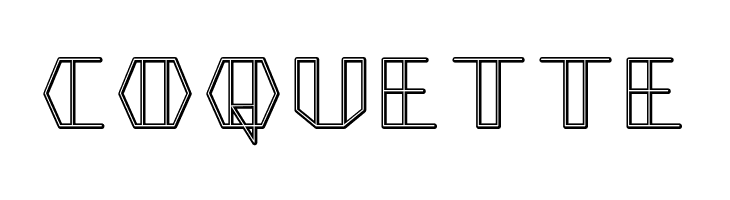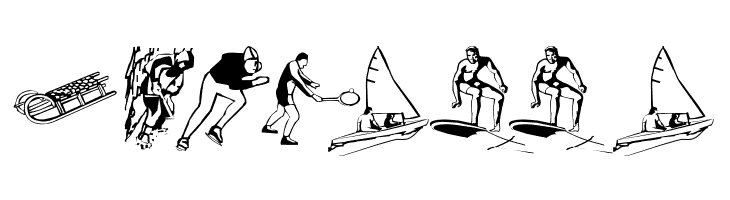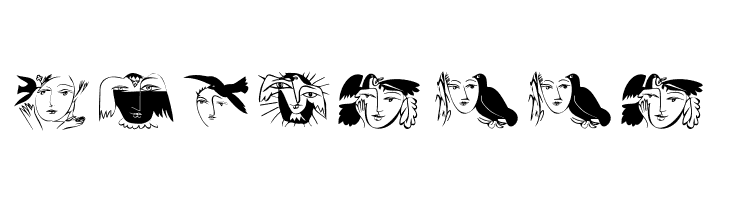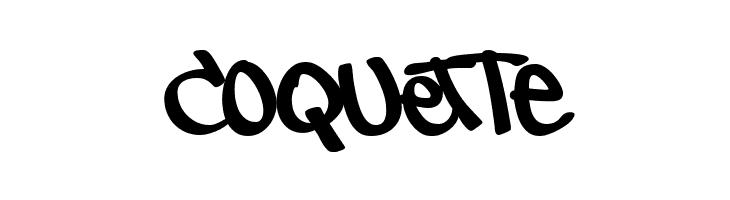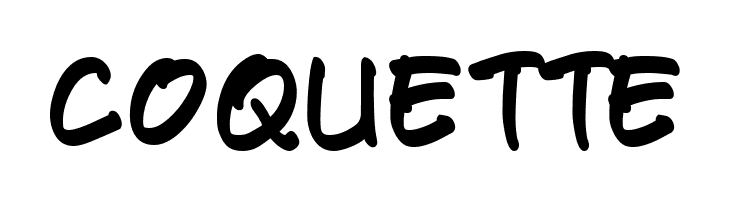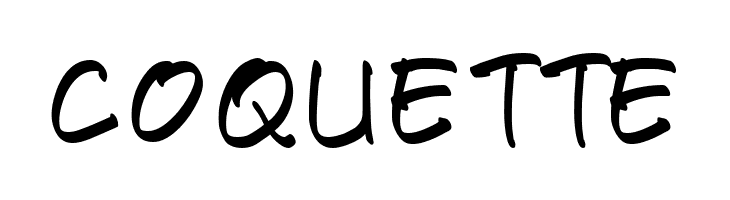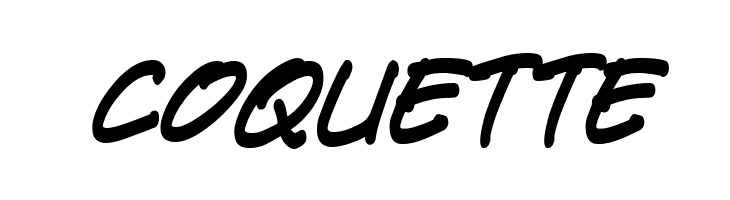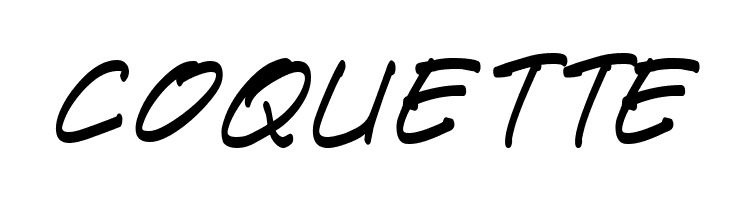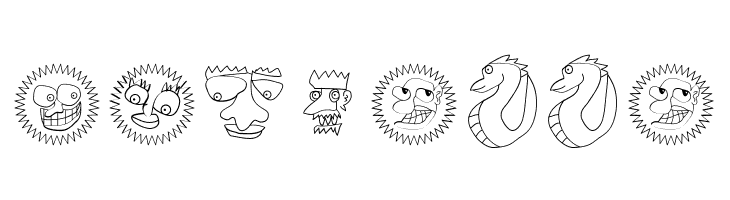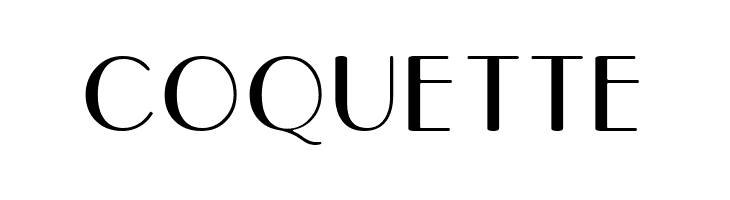
Illustrative dingbat font depicting outdoor sports.
A geometric, outlined font with a modern, futuristic style.
A whimsical font featuring cartoonish character heads with playful expressions.
An artistic and decorative font with abstract illustrations inspired by Picasso.
A playful and casual handwritten font with rounded, dynamic strokes.
A bold, rounded, handwritten-style font with a playful and casual vibe.
A bold, italicized, rounded handwritten font with a playful and dynamic style.
A dynamic, rounded italic script font with a fluid, elegant style.
A modern and elegant font with playful curves and dynamic strokes.